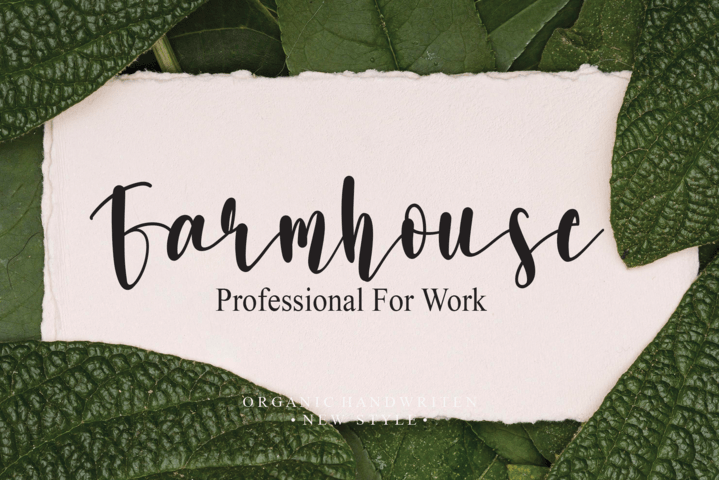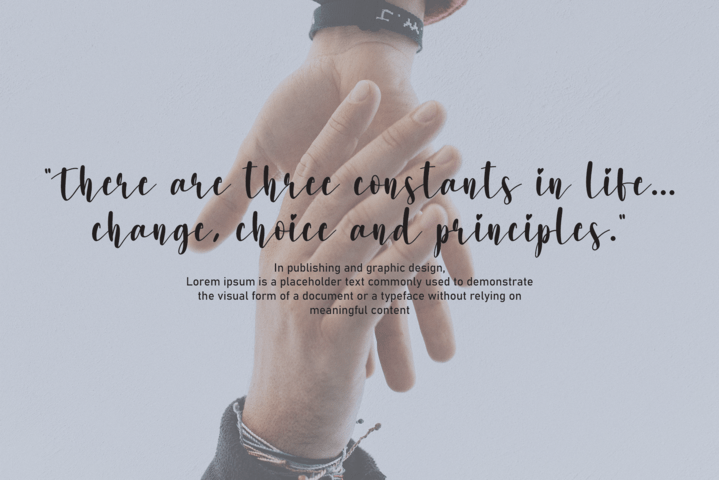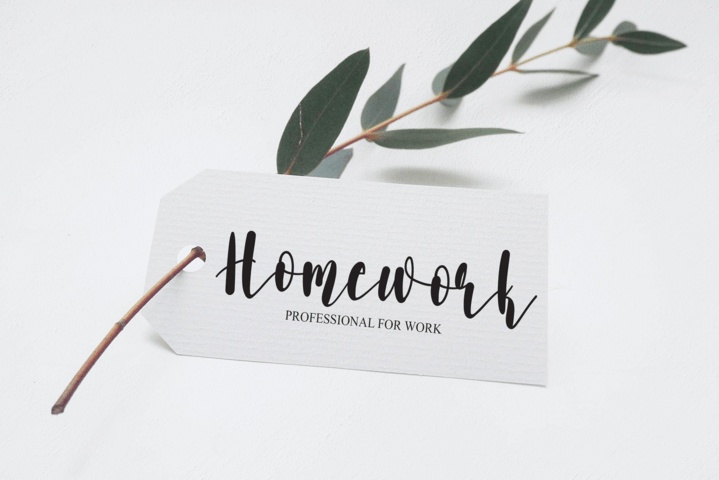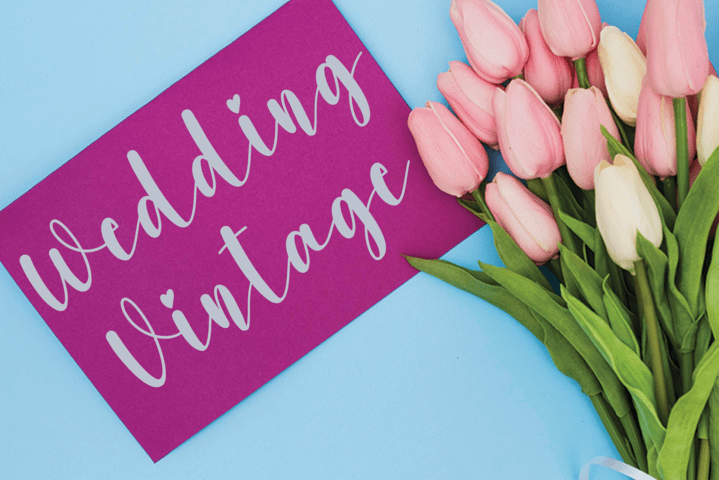
Signature Typeface
Signature Script Font
It’s a lovely and timeless handwritten font. It is the best choice for creating eye catching logos, branding and quotes. Every letter has a unique and beautiful touch, which will make your design come alive!